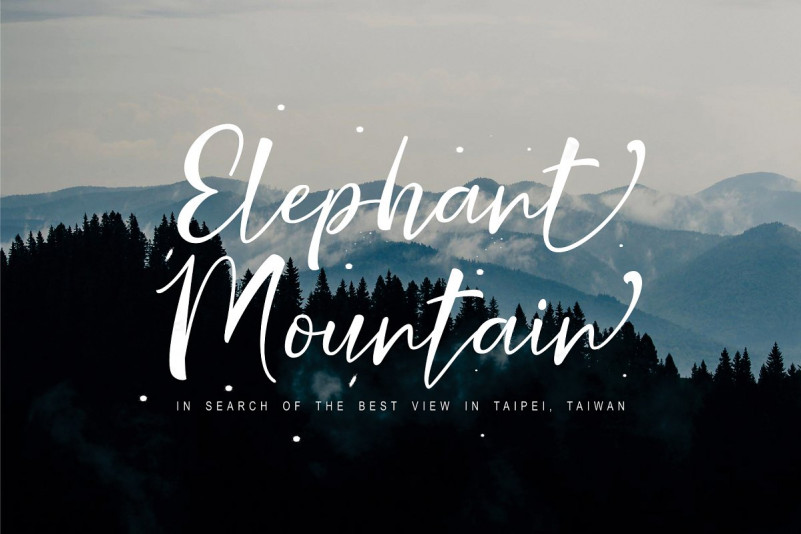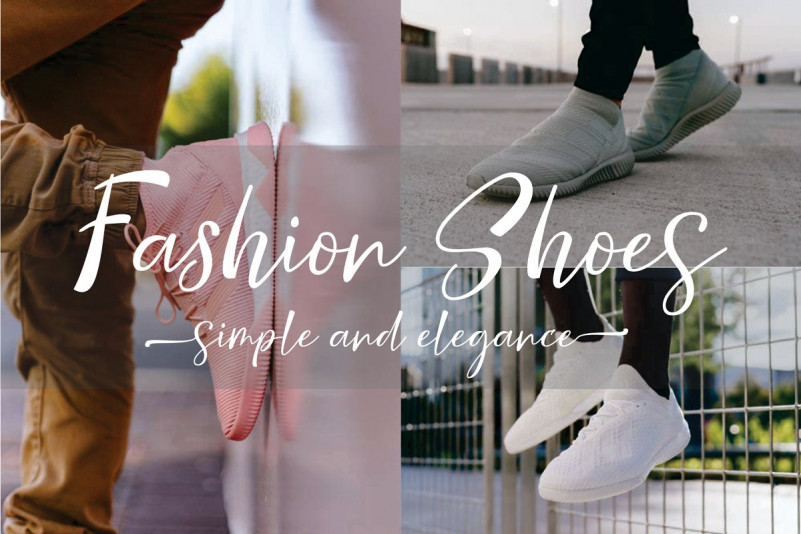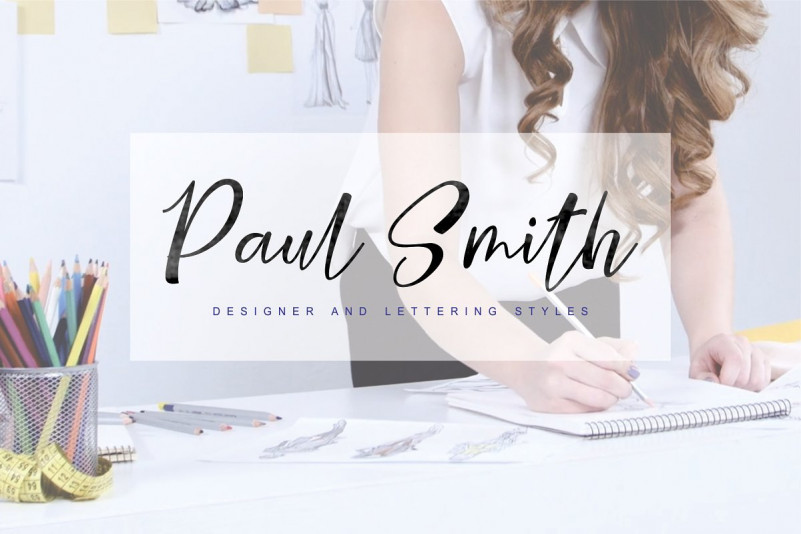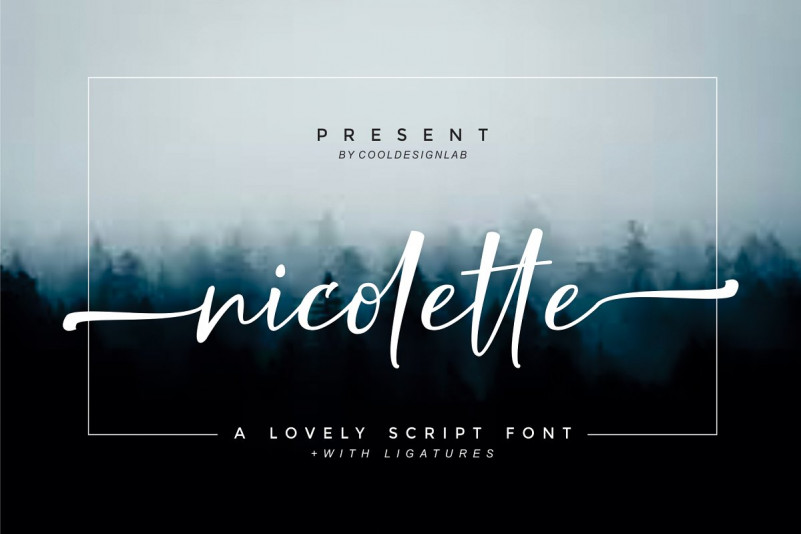
Nicolette Script Font
Nicolette Script Demo Font
Say hello to Nicolette Font! A lovely script font, This is handwritten font with a quirky, modern calligraphy look! Perfect for making elegant stylish statements – or adding a touch of class to your designs. Nicolette is a handwritten script font that is given a modern touch and front and back swashes. Can be used for various purposes. Suitable for Branding, Happy New Year, Logos, Greeting Cards, Stationery, Weddings and Offers. Such as titles, signatures, wedding invitations, t-shirts, letterhead, signboards, labels, music titles, news, posters, badges etc.